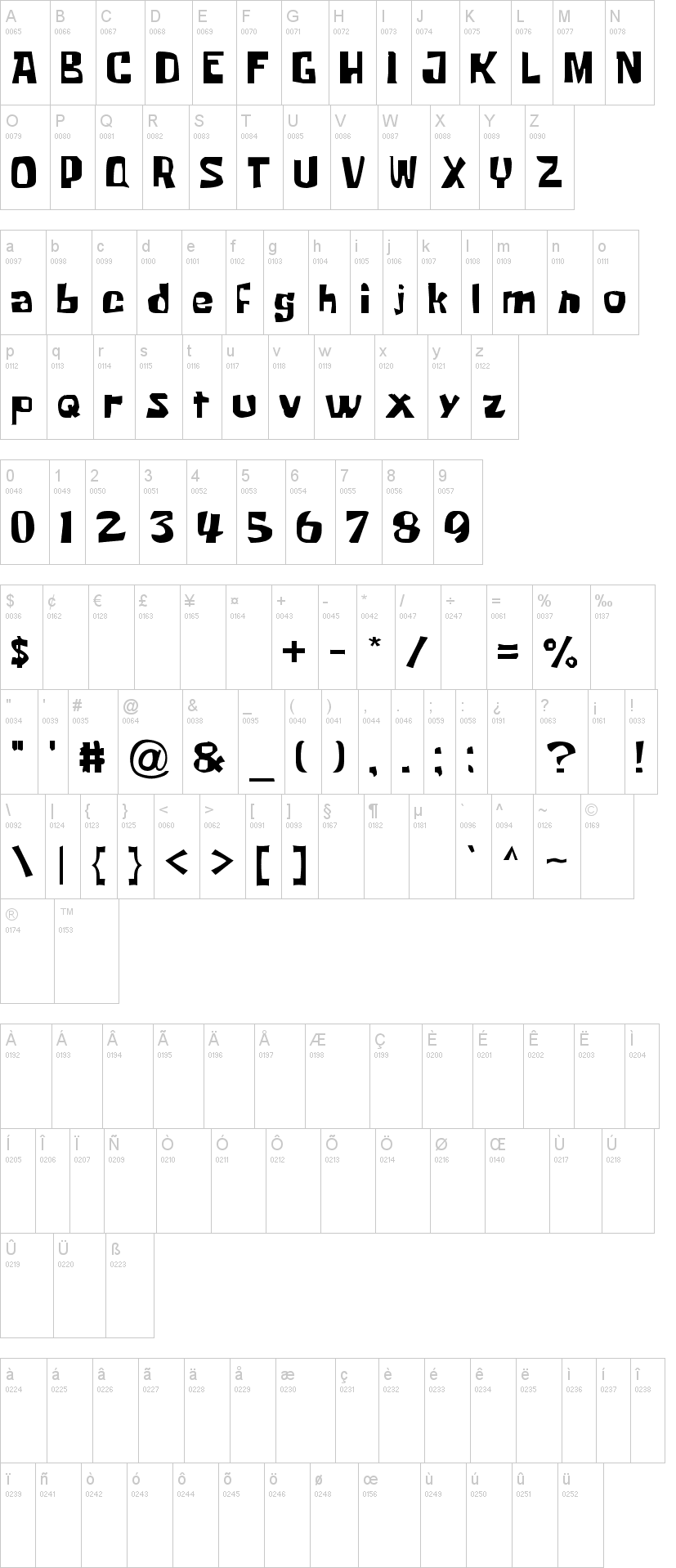
Krabby Patty Font
Krabby Patty Font - Web krabby patty is a recreation of the main font used throughout the spongebob squarepants franchise. Web spongebob fonts are fan creations of your favorite tv show, spongebob squarepants on nickelodeon.
Web Spongebob Fonts Are Fan Creations Of Your Favorite Tv Show, Spongebob Squarepants On Nickelodeon.
Web krabby patty is a recreation of the main font used throughout the spongebob squarepants franchise.